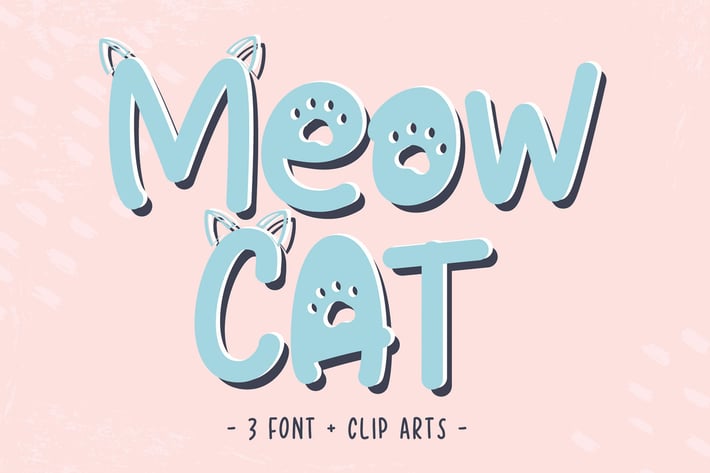
Cat Meow Font
Cat Meow is an amazing and cute display font.
It features gorgeous Cat cliparts and it’s the perfect choice for cat-themed crafting projects.